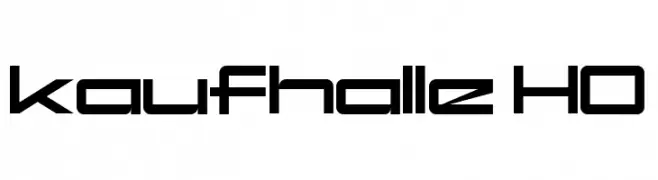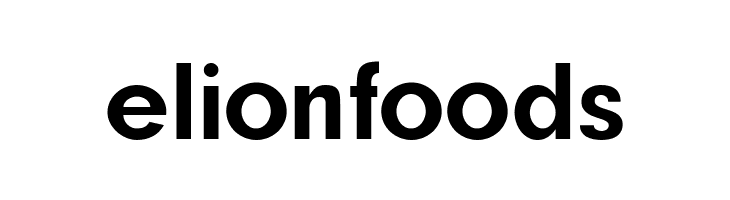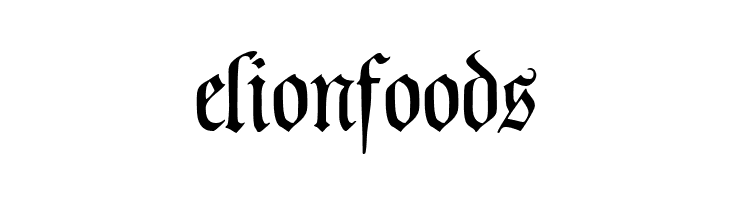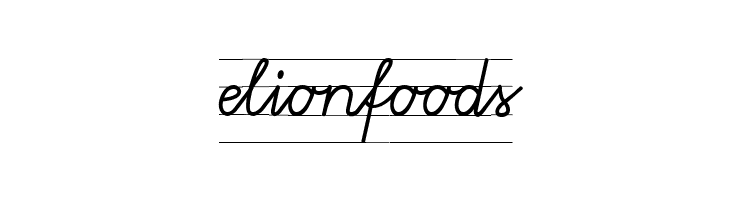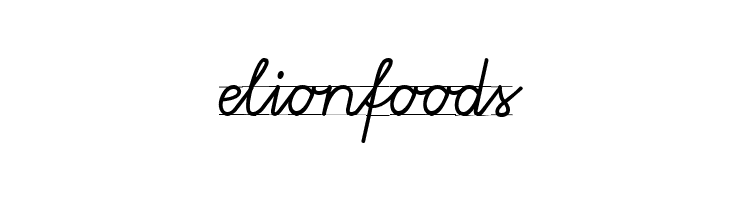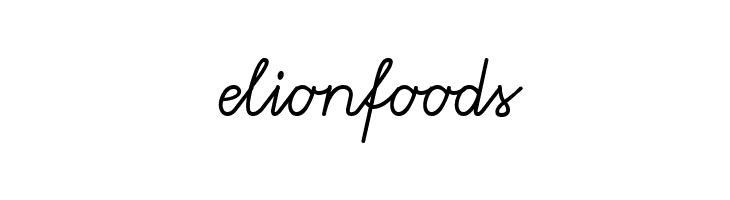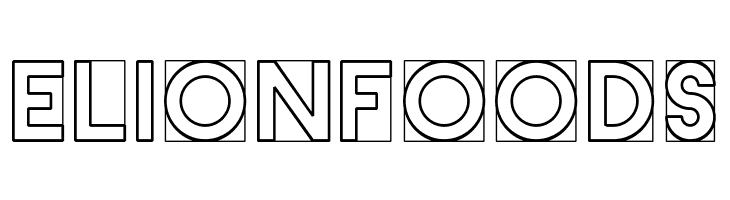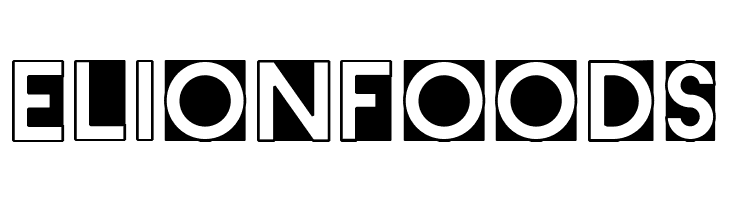
A bold, modern sans-serif font with excellent legibility and versatility.
A classic blackletter font with ornate, intricate letterforms and a historical aesthetic.
A bold, medieval-inspired font with sharp serifs and elegant flourishes.
A modern, geometric font with angular shapes and a futuristic feel.
A modern, geometric outline font with a futuristic and industrial style.
A classic cursive script font with smooth, flowing lines.
A classic cursive script with elegant, connected letters for a handwritten look.
A cursive font with a fluid, handwritten style and moderate stroke contrast.
A bold, geometric font with a unique cut-out style, perfect for modern designs.
Bold, geometric font with a unique cut-out effect for striking visual impact.